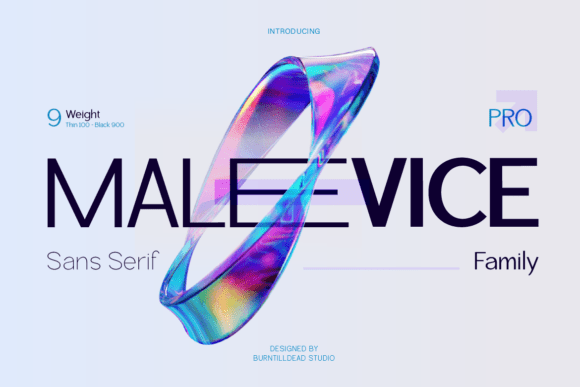
Malevice Pro Font: Elevate Your Designs with Modern Style and Flexibility
In the world of typography, a font can make or break a design project. With the right font, you can convey your message with clarity, style, and impact. Introducing Malevice Pro, a sans-serif font that perfectly blends modern style and flexibility, making it an ideal choice for a wide range of design projects.
Clean, Balanced, and Professional Look
Malevice Pro boasts a clean, balanced, and professional look that is sure to elevate your designs. Its sleek lines, precise curves, and carefully crafted letterforms create a visually appealing aesthetic that is both modern and timeless. Whether you’re designing a logo, brochure, or website, Malevice Pro provides a solid foundation for your creative vision.
9 Weights for Endless Design Possibilities
One of the standout features of Malevice Pro is its impressive range of weights. Available in 9 weights, from Thin to Black, this font offers unparalleled flexibility. Whether you’re looking to create sleek and minimal designs or bold and powerful visuals, Malevice Pro has got you covered. The various weights allow you to experiment with different styles, ensuring that your design perfectly captures the tone and mood you want to convey.
- Thin: Perfect for subtle, elegant designs
- Extra Light: Great for adding a touch of sophistication
- Light: Ideal for designs that require a bit more emphasis
- Regular: A versatile weight for everyday designs
- Medium: Suitable for designs that need a bit more presence
- Semi Bold: Great for adding a touch of drama
- Bold: Perfect for making a statement
- Extra Bold: Ideal for designs that require maximum impact
- Black: Suitable for creating bold, eye-catching visuals
Stand Out with Unique Alternates
Malevice Pro takes typography to the next level with its unique alternates. These alternates provide a fresh twist on traditional letterforms, allowing you to add a touch of personality to your designs. With Malevice Pro, you can create designs that stand out from the crowd while maintaining readability. The alternates are carefully crafted to ensure that your text remains clear and legible, even at smaller font sizes.
Endless Design Possibilities
Malevice Pro’s versatility makes it suitable for a wide range of design applications. Here are just a few examples:
- Logo design: Create a lasting impression with a custom logo designed with Malevice Pro
- Branding: Establish a strong brand identity with consistent typography
- Print design: Elevate your brochures, flyers, and posters with Malevice Pro’s clean lines and balanced aesthetic
- Digital design: Use Malevice Pro to create stunning website headers, mobile app interfaces, and more
Typography Tips for Using Malevice Pro
To get the most out of Malevice Pro, here are some typography tips to keep in mind:
- Experiment with different weights to create visual hierarchy
- Use alternates to add personality to your designs
- Pay attention to letter spacing and kerning for optimal readability
- Combine Malevice Pro with other fonts to create a unique typography system
The Benefits of Using Malevice Pro
Malevice Pro offers a range of benefits that make it an attractive choice for designers. Here are just a few:
- Improved readability: Malevice Pro’s clean lines and balanced aesthetic ensure that your text is easy to read
- Increased flexibility: With 9 weights and unique alternates, Malevice Pro offers endless design possibilities
- Enhanced creativity: Malevice Pro’s modern style and flexibility inspire creativity and experimentation
- Professional look: Malevice Pro’s sleek and polished aesthetic gives your designs a professional edge
In conclusion, Malevice Pro is a versatile and modern sans-serif font that is perfect for designers looking to elevate their designs. With its clean, balanced, and professional look, 9 weights, and unique alternates, Malevice Pro offers endless design possibilities. Whether you’re designing a logo, brochure, or website, Malevice Pro provides a solid foundation for your creative vision. So why settle for ordinary typography when you can have a font that perfectly blends modern style and flexibility? Try Malevice Pro today and take your designs to the next level.